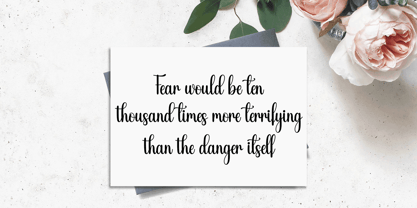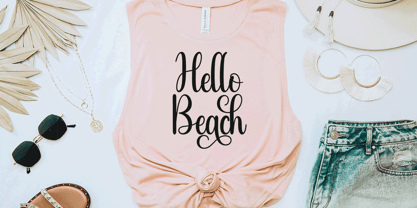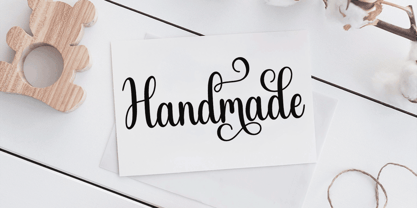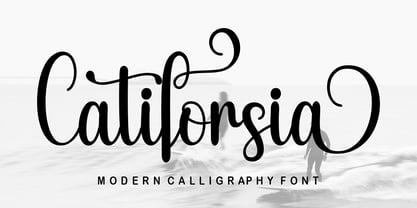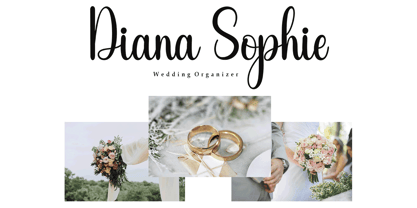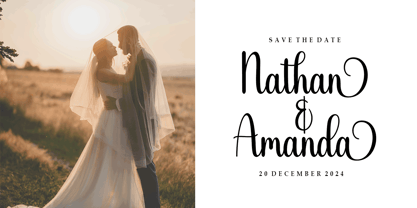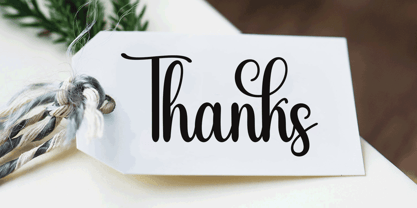
Catiforsia Script
by Good Design
The Catiforsia Script Font Family was designed by Agus Pujiyono and published by Good Design. Catiforsia Script contains 1 styles. More about this family
Catiforsia Script is an elegant and flowing handwritten font. It has varied baselines, smooth lines, beautiful glyphs, and stunning alternates. It maintains a classy calligraphic influence while feeling contemporary and fresh. Fall in love with this font and take your projects to the highest level!
Designers: Agus Pujiyono
Foundry: Good Design